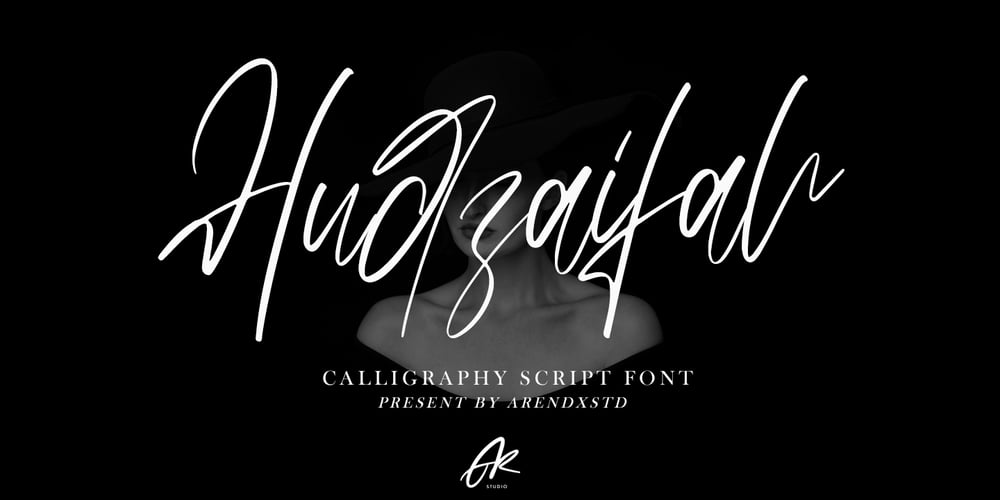
Hudzaifah
Hudzaifah font
Hudzaifah Font Family was designed by Asep Rendi and published by Arendxstudio. Hudzaifah contains 1 styles and family package options. Hudzaifah is a crème de la crème modern calligraphy font with sophisticated messy ink accents. It is perfect for branding and packaging design.Hudzaifah includes full set of lovely uppercase and lowercase letters, multilingual symbols, numerals, punctuation and ligatures. All lowercase letters include beautiful and unique . Also, includes multi-lingual support.There it is! I really hope you enjoy it – comments & likes are always welcome and accepted. More importantly, don’t hesitate to send a message if you have a problem or question.Now just read this, go there and make it happen 🙂